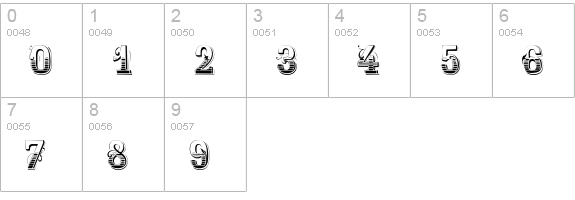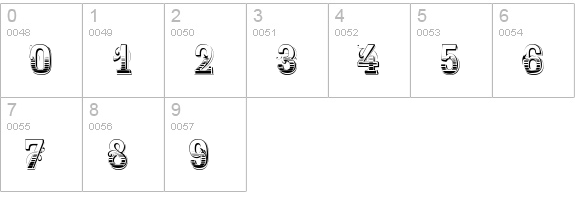
DanceHallCaps Font Details
Introducing DanceHallCaps font, a captivating and energetic typeface that brings the vibrant spirit of dancehall music to life. With its bold and dynamic letterforms, DanceHallCaps is perfect for creating eye-catching headlines, posters, and branding materials that demand attention. This font is a true celebration of the dancehall culture, with each character exuding a sense of movement and rhythm. The letters are meticulously designed to emulate the high-energy dance moves and the pulsating beats that are synonymous with dancehall music. DanceHallCaps font is not only visually striking but also highly versatile. It effortlessly blends traditional letterforms with a contemporary twist, making it suitable for a wide range of creative projects. Whether you're designing album covers, party flyers, or social media graphics, this font will add a touch of excitement and flair to your work. One of the most appealing aspects of DanceHallCaps font is that it is available for free download at FontsMarket.com. This means that you can easily access and use this font without any cost, making it accessible to everyone, from seasoned designers to beginners. So why wait? Unleash your creativity and infuse your designs with the infectious energy of dancehall music using DanceHallCaps font. Download it today at FontsMarket.com and let your designs groove to the rhythm of this captivating typeface.